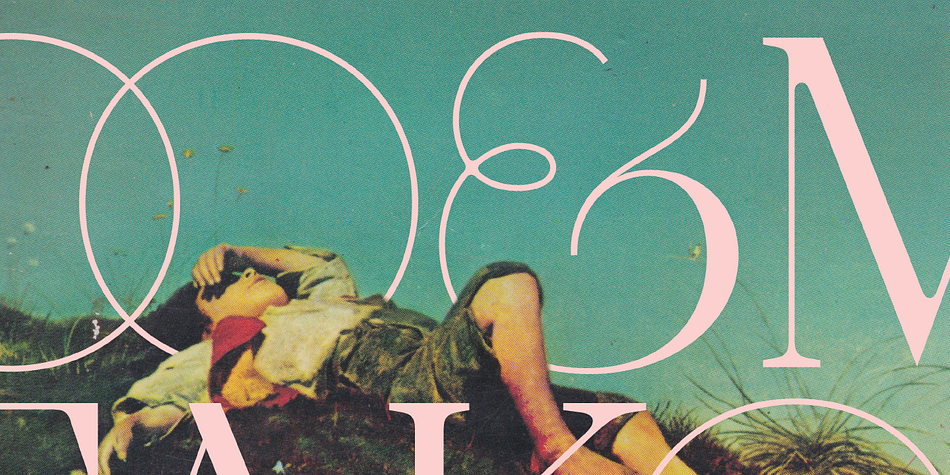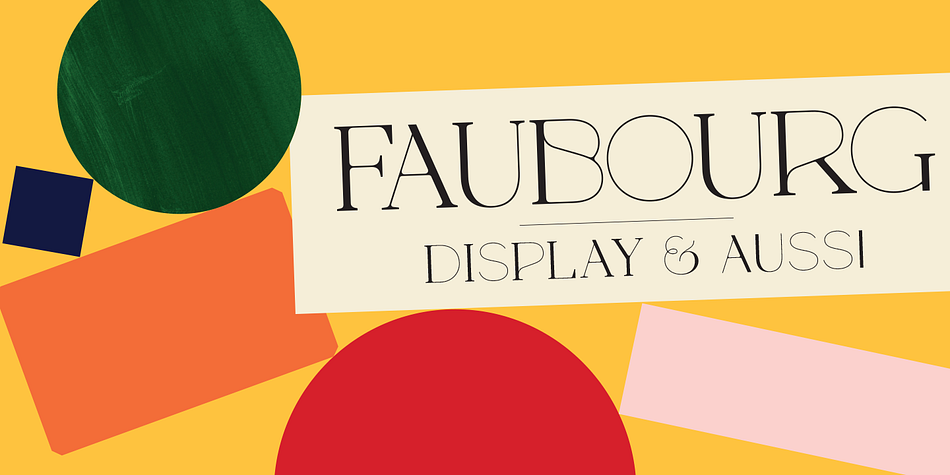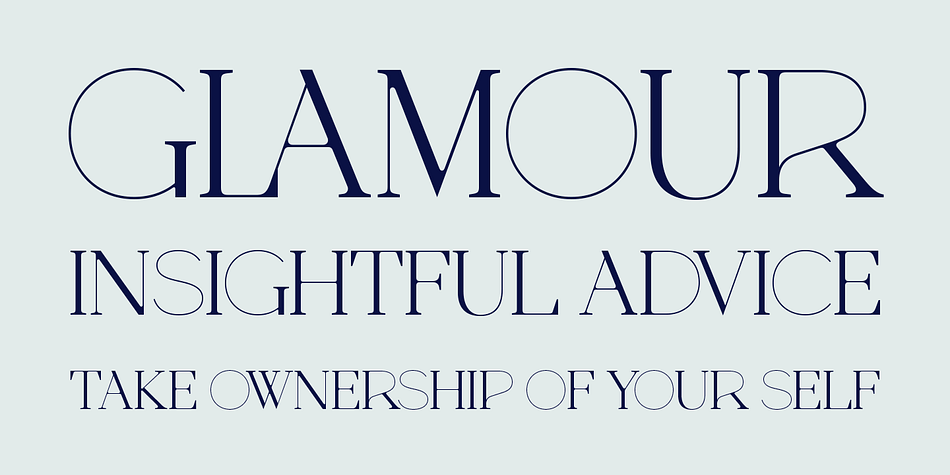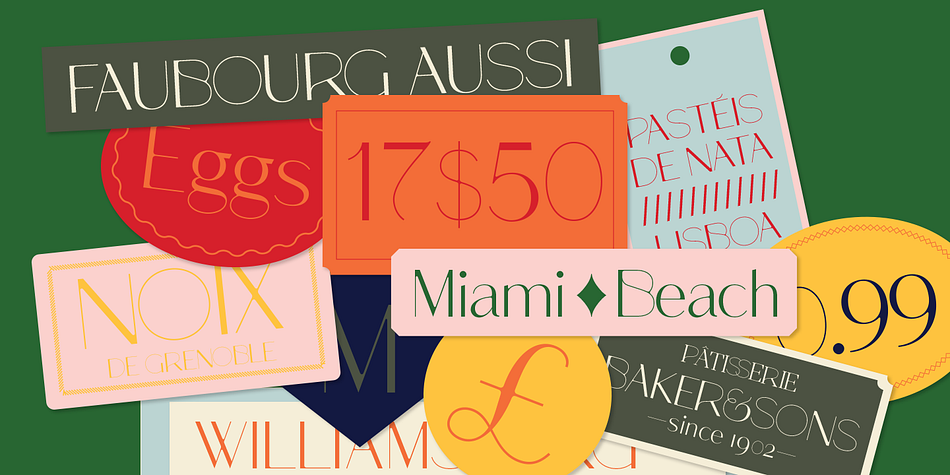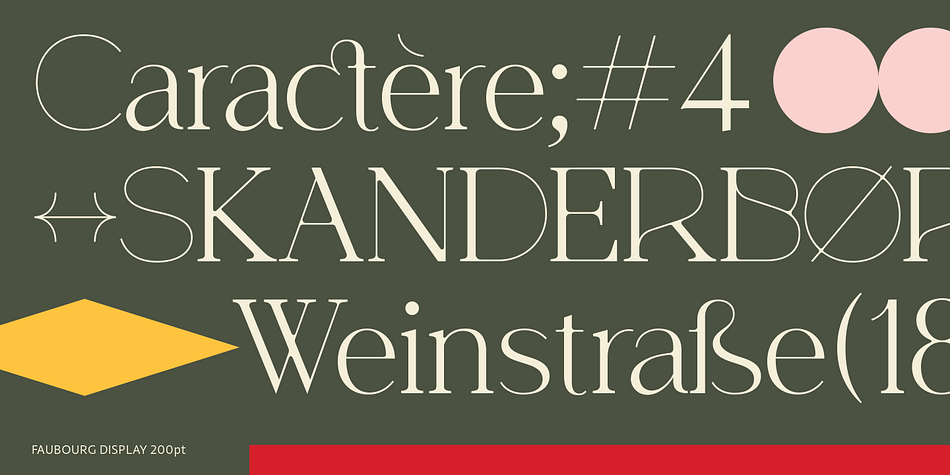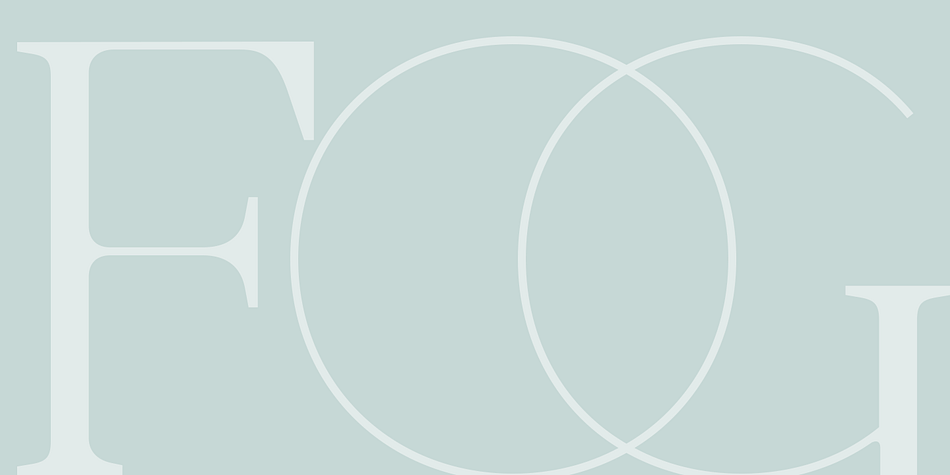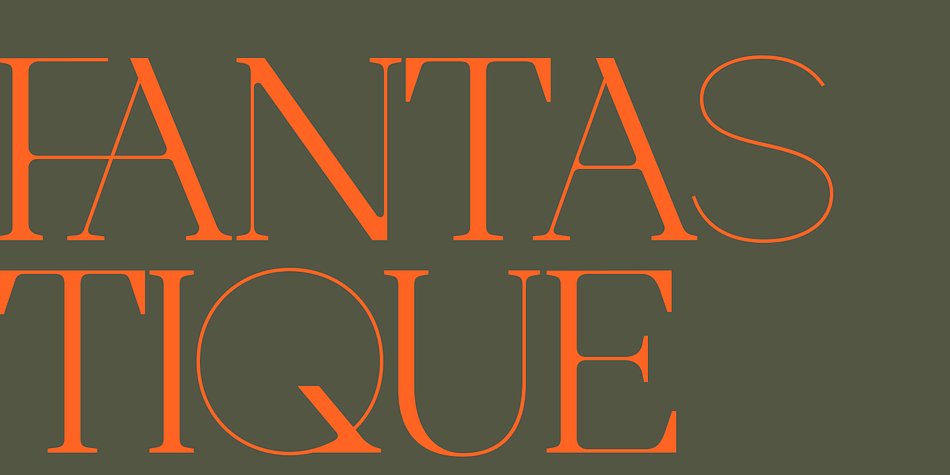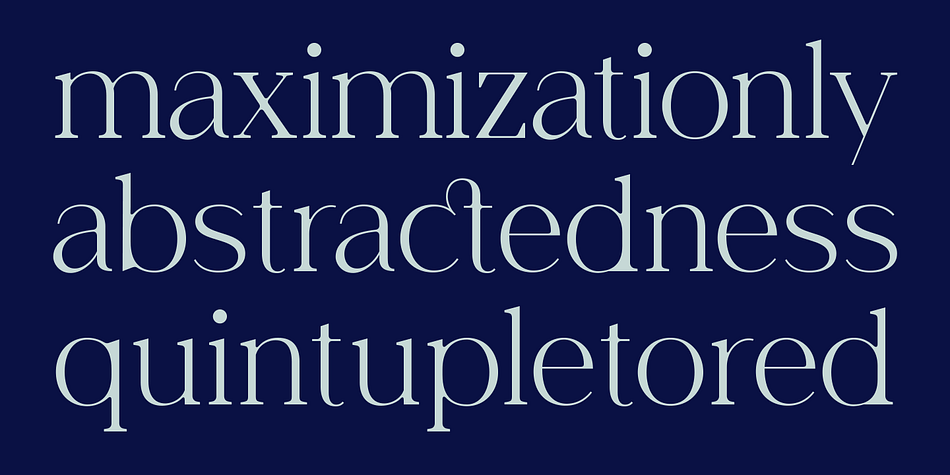
Designed by Marie Boulanger, Faubourg is a sans serif and serif font family. This typeface has two styles and was published by Positype.
Faubourg marks the first professional typeface release by Marie Boulanger. As much traditional as it is unconventional in its celebration of letterforms, this typeface dances on the page and screen as it moves from a more conventional appearance to monoline and back again. The flowing silk-like undulation only accentuates this distinguishing feature and produces one opportunity after the next for headline settings where the word is as important as the content supporting it.